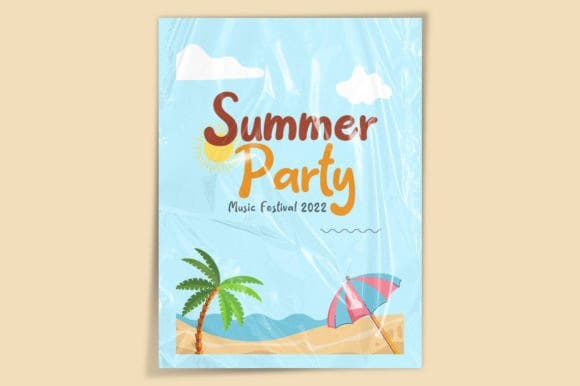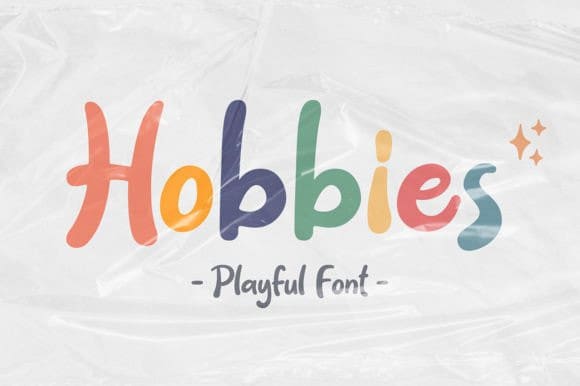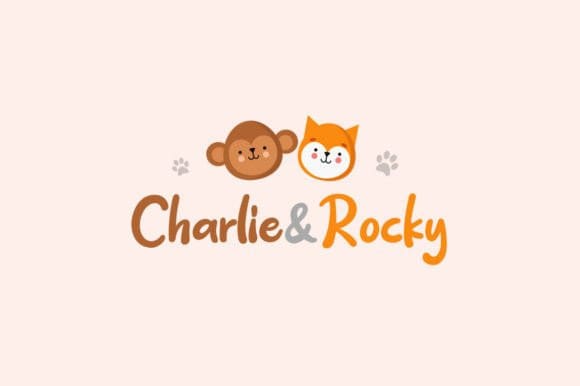
Hobbies Playful Font
Hobbies Playful Font is a playful and childish display font, designed to bring a touch of fun and whimsy to any project. Its bold and bubbly letters are perfect for children’s books, toy packaging, and other playful designs. This font will bring out the kid in everyone and add a touch of joy and playfulness to your project.